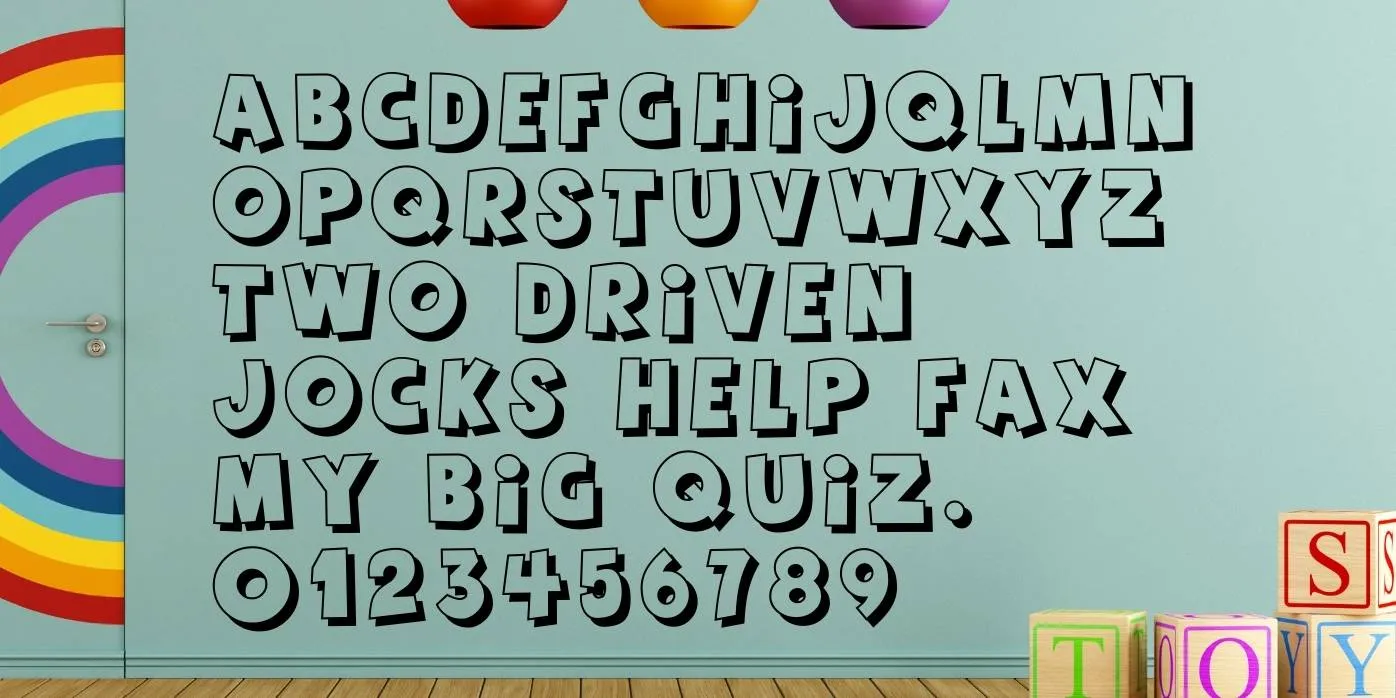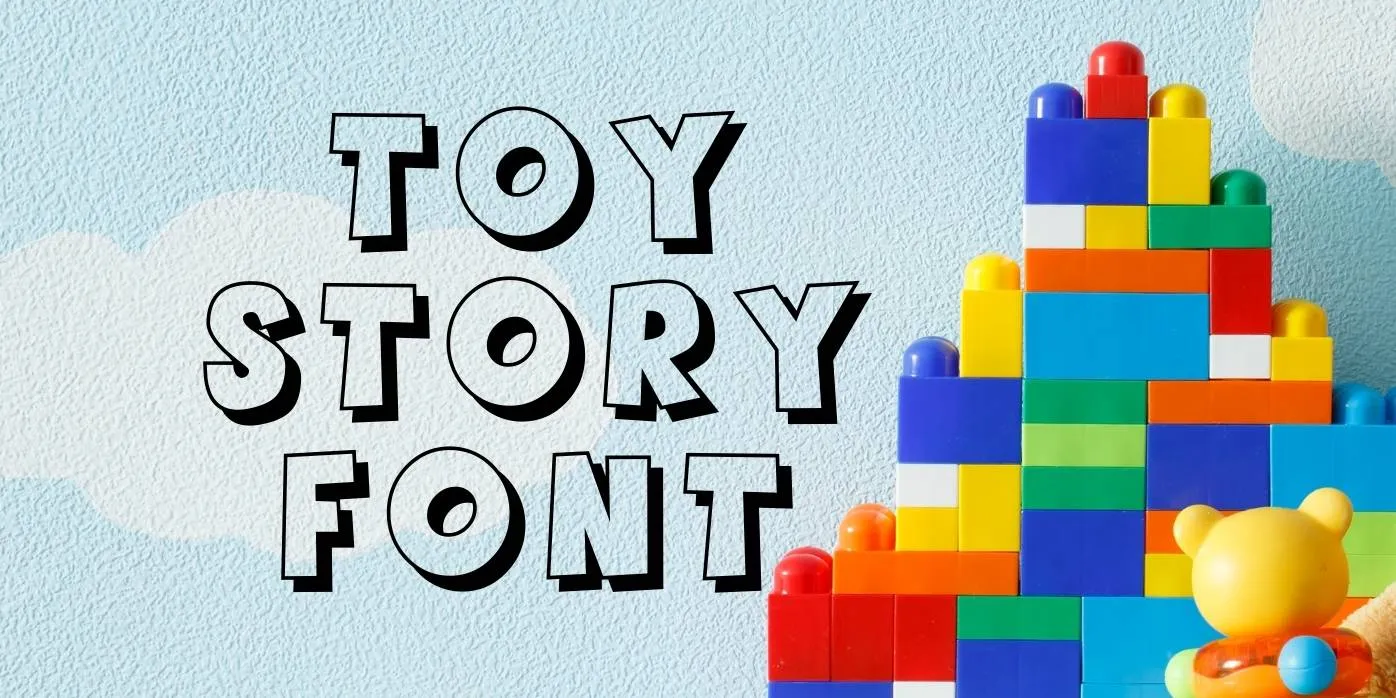
Toy Story Font
Let’s introduce a most amazing and stylish typeface named Toy Story Font. This font family was designed by Eric Gill. It belongs to the display typeface. This typeface is used for the logo of different animated movies.
It is also used for toy series. By using two different types of font logo of the movie was designed. These fonts are for the story part and Toy part. By using Gills Sans Font this story was created.
It was a very famous animated story. This font family was public again by an American Company in the year 1928. In starting period, this typeface has come in only some styles. But now this modern typeface is available in multiple styles.
It became popular day by day. This animated story was released by the most famous Pixar Animation Studios. Because of its too many features, this font family is used everywhere. Some famous and most used styles of this typeface are Gills Sans Bold, Ultra Bold, Shadow, Extra Bold, and many others more.